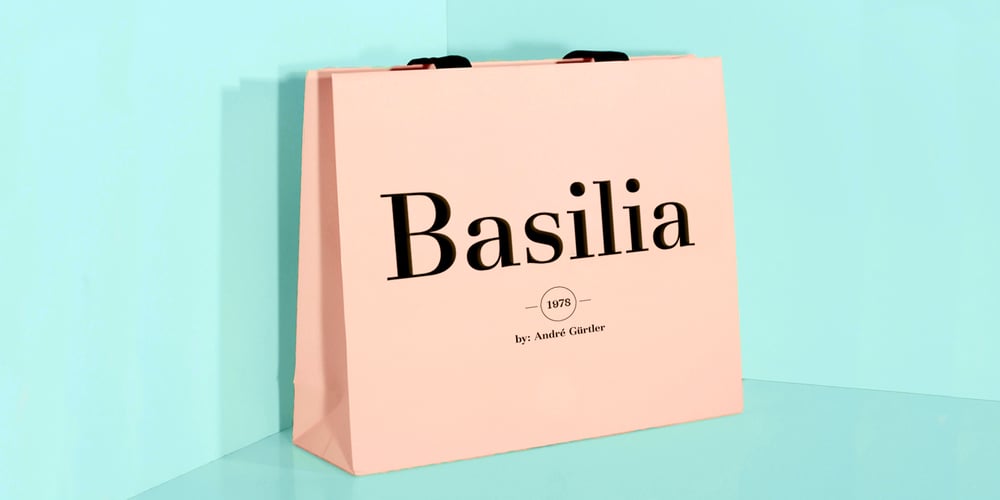
Basilia Font Family was designed by André Gürtler and published by Linotype. Basilia contains 6 styles and family package options. Among the countless typefaces available today, the Modern Face style is relatively underrepresented. During the 19th century and then later with the competition from the mechanized hot metal types and film setting, a number of attractive headline types appeared in this style. For text, however, the available types were limited to those based on tried and true classics like Walbaum, Didot and Bodoni, which were created between 1780 and 1830, as well as a few variations from the end of the 19th and beginning of the 20th centuries. The demand for new Modern text types remained nonexistant until the 1960s.Such was the situation when the Haas’sche Schriftgiesserei (Haas Type Foundry) commissioned me to come up with a concept and sketches of a new hot metal type. I was able to convince the director of the foundry that there was a niche to be filled with contemporary Modern typography. Another reason for the production of a new type was of a technical nature: the introduction of a new setting technique should not be limited to existing typefaces, but instead should lead to innovative text types suited to the demands of the new applications.André Gürtler, Basilia’s designer: I began to work on the concept and initial designs of the new text type in 1968. I wanted to give the type a classical look, expressed above all in the strong stroke contrast between the robust verticals and fine horizontal strokes and serifs. This is one of the main characteristics of Modern typography.””This new typeface, Basilia, is distinguished by its soft, open appearance as well as a number of details which together mark a departure from historical models. For example, it has nothing of Bodoni’s round letters and their angular, narrow spacing, and displays instead round forms with a much softer stroke in the curves. It was very important to me to avoid the Modern characteristic of stiff, vertical, grid-like strokes and to create instead a lighter, more transparent type. I retained the Modern style by using straight horizontal serifs at right angles to the strokes to still give the type its sense of rigidity.”Three sketches for Basilia (normal, italic, and bold) were finished in 1973. Only the 9-point size was produced at first. In the following years, basic weights were made and adapted to filmsetting.”